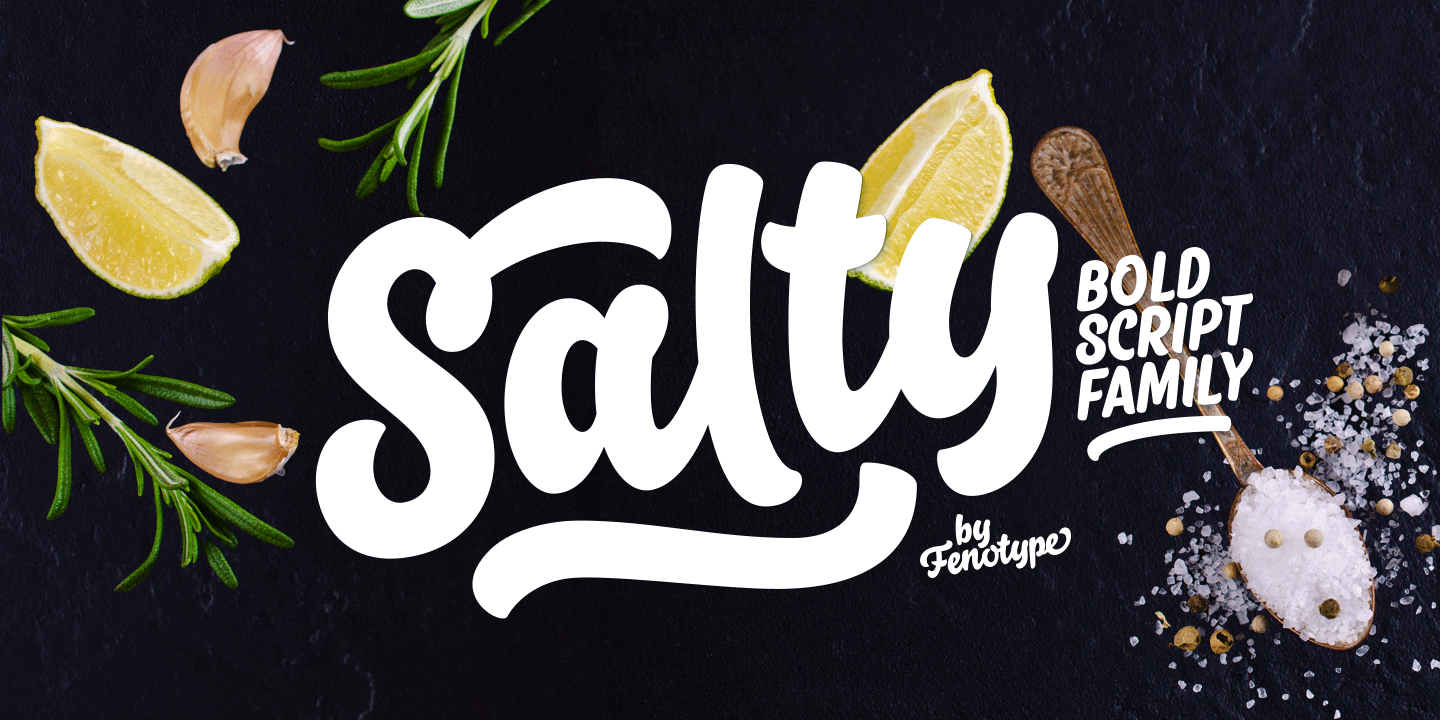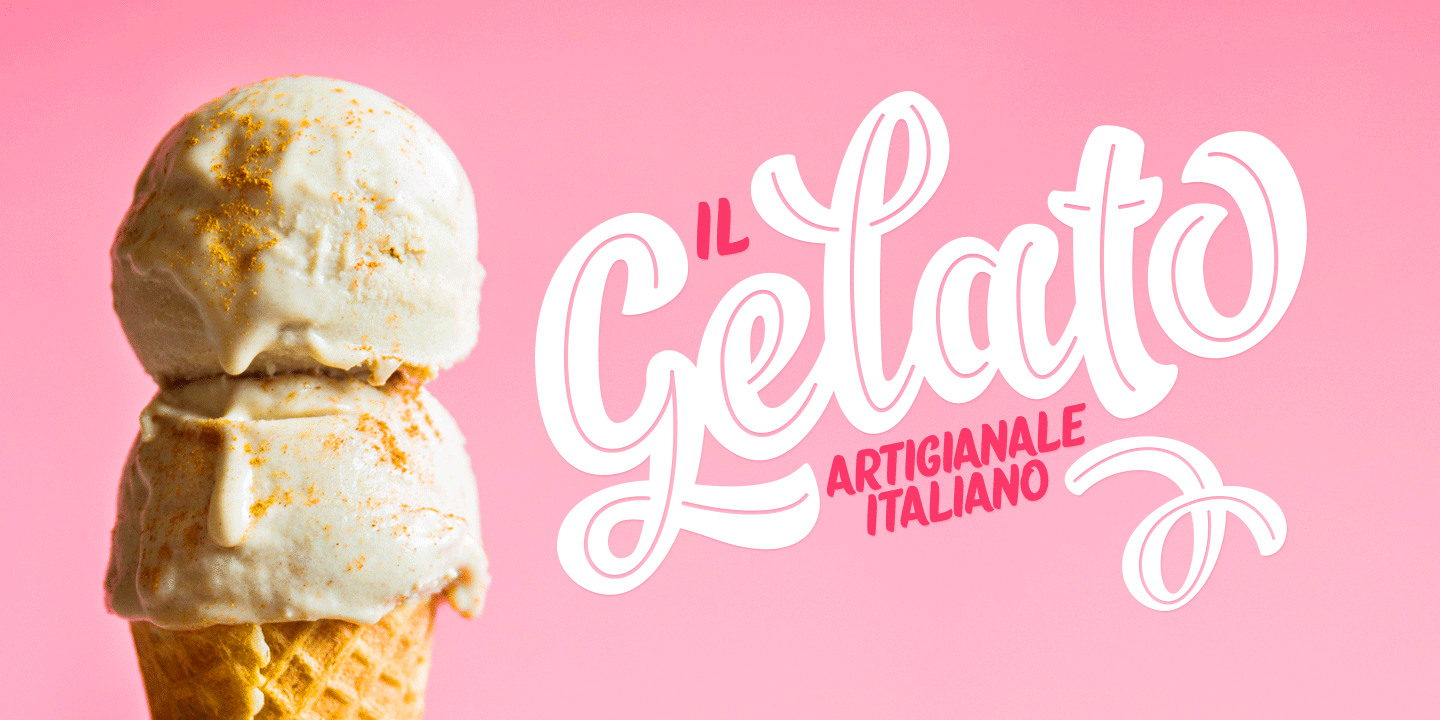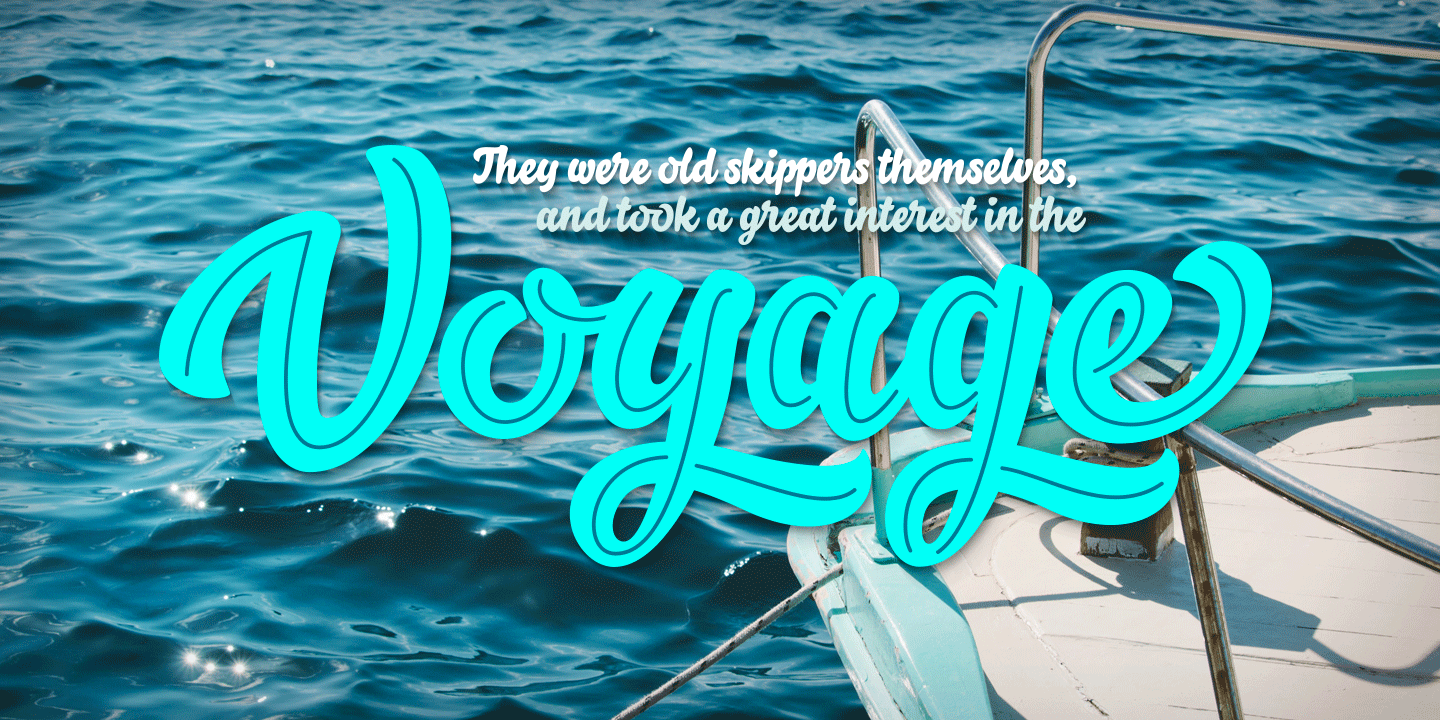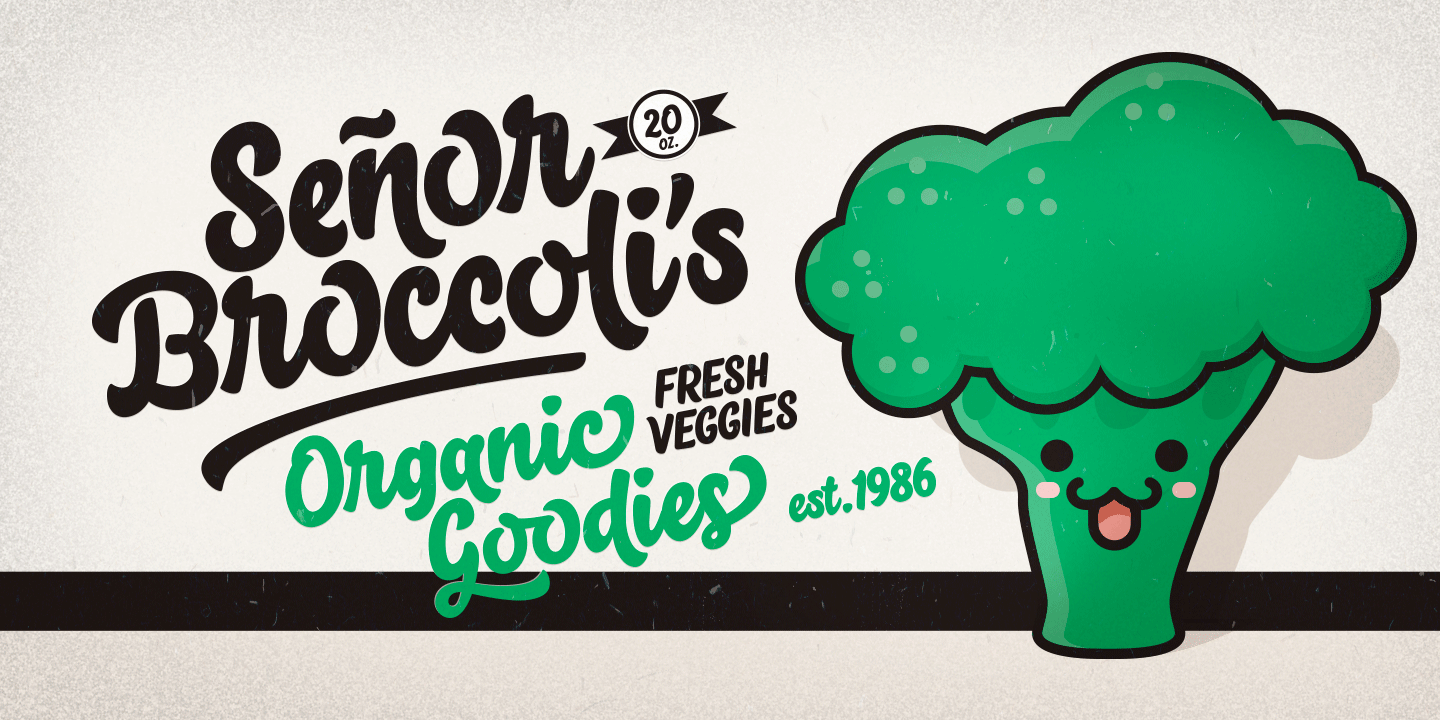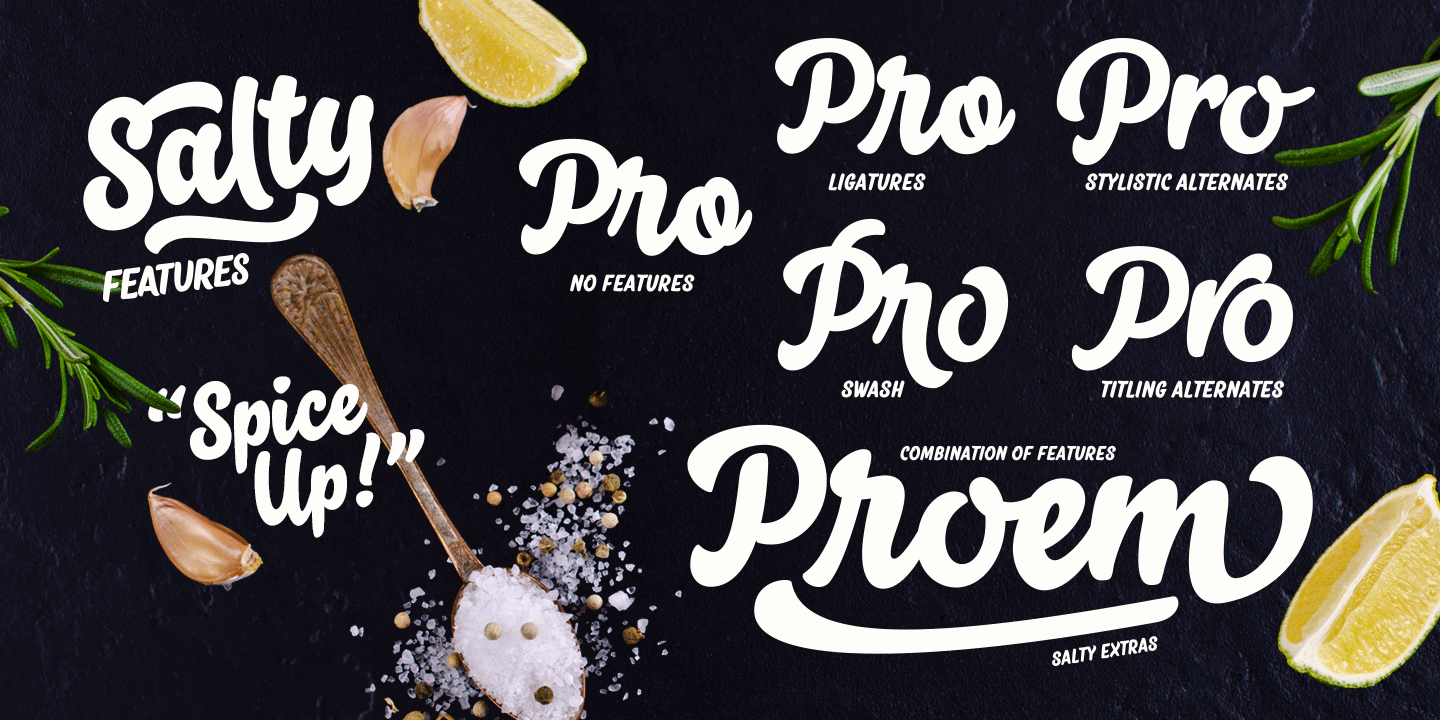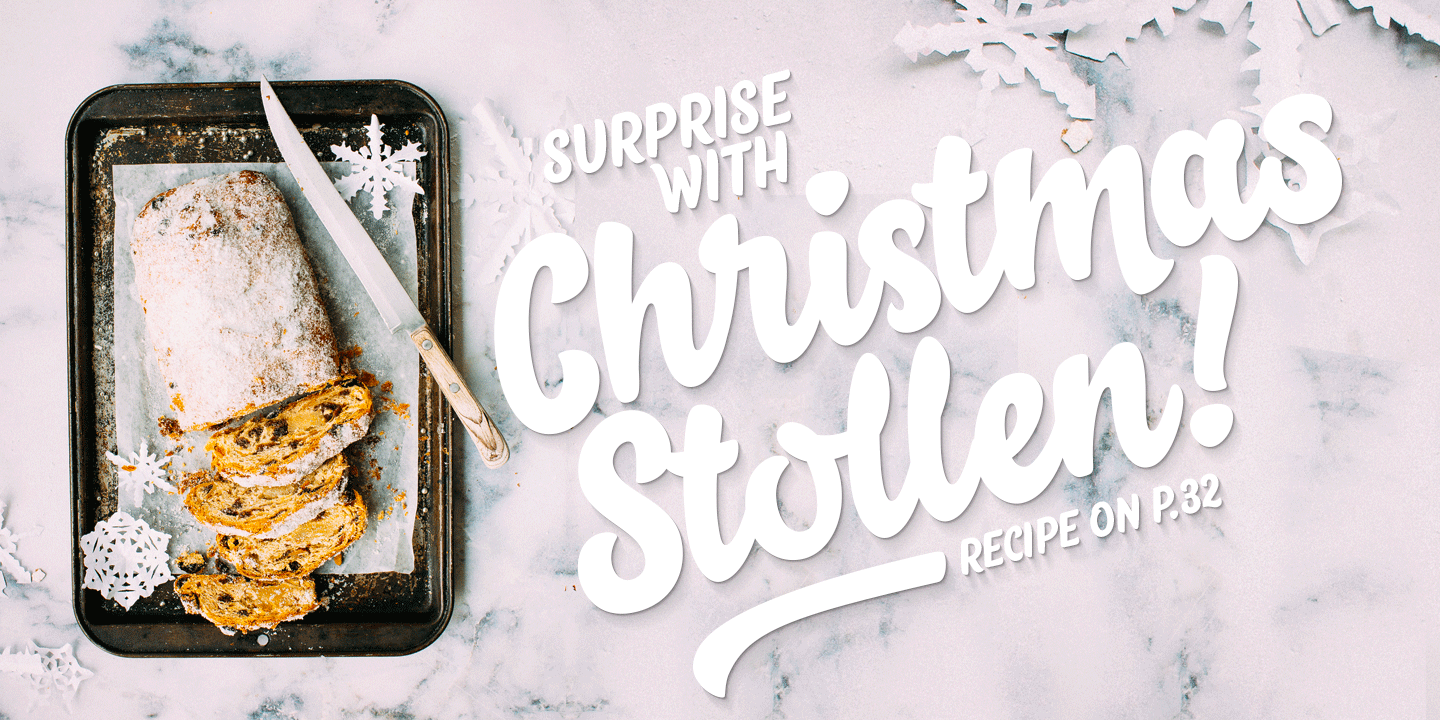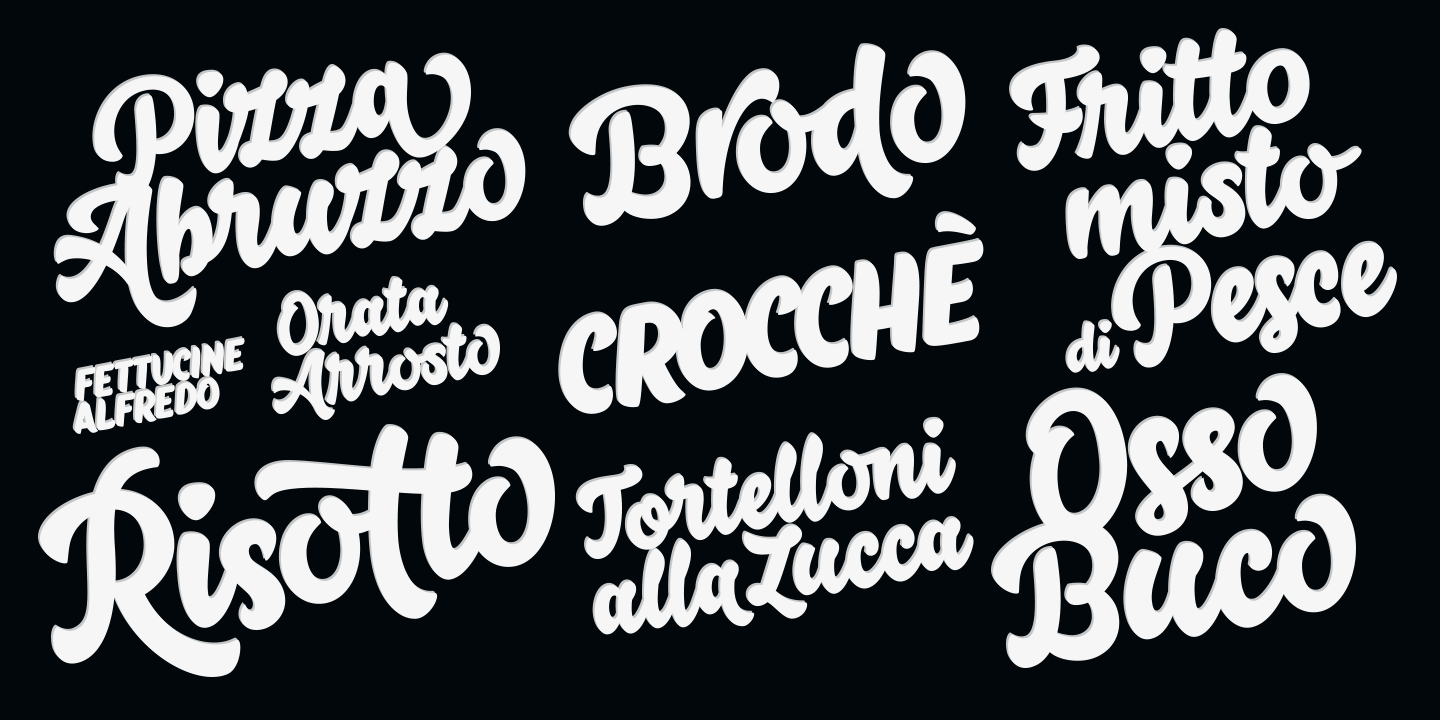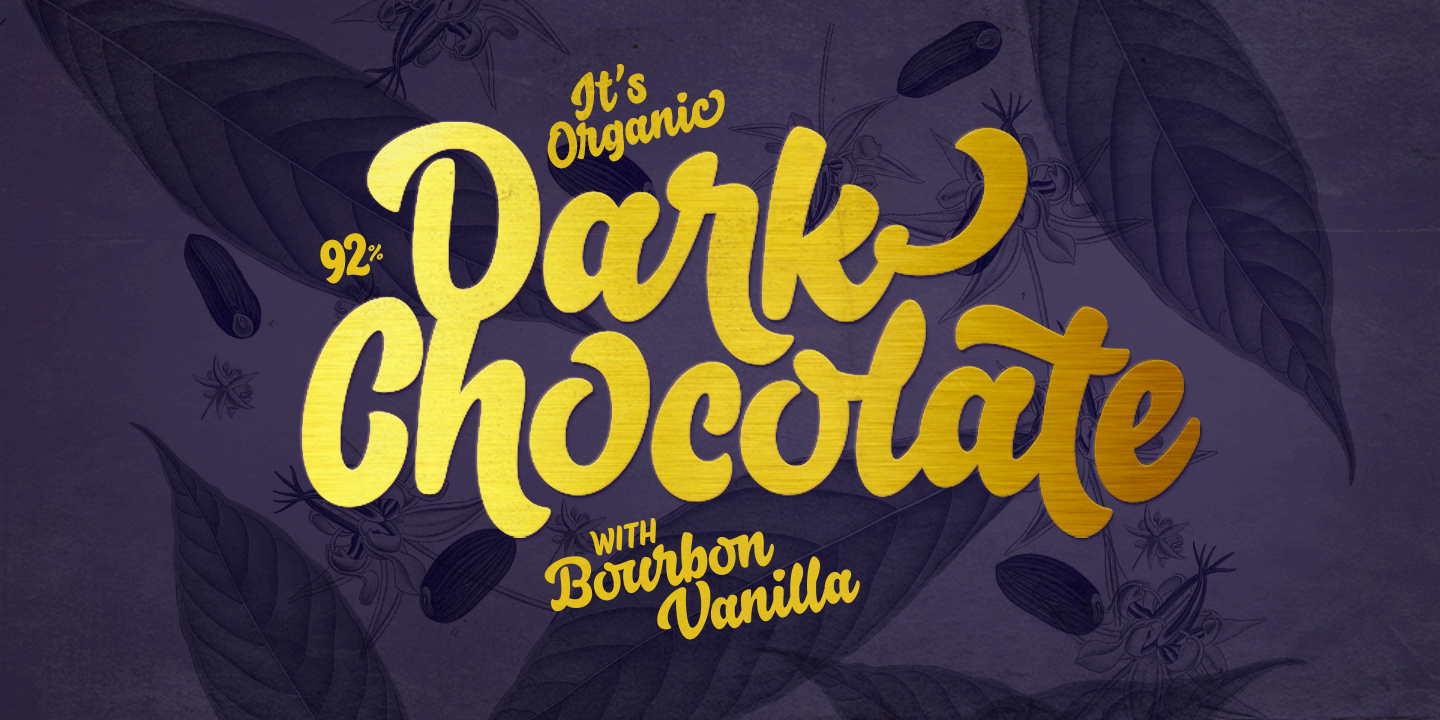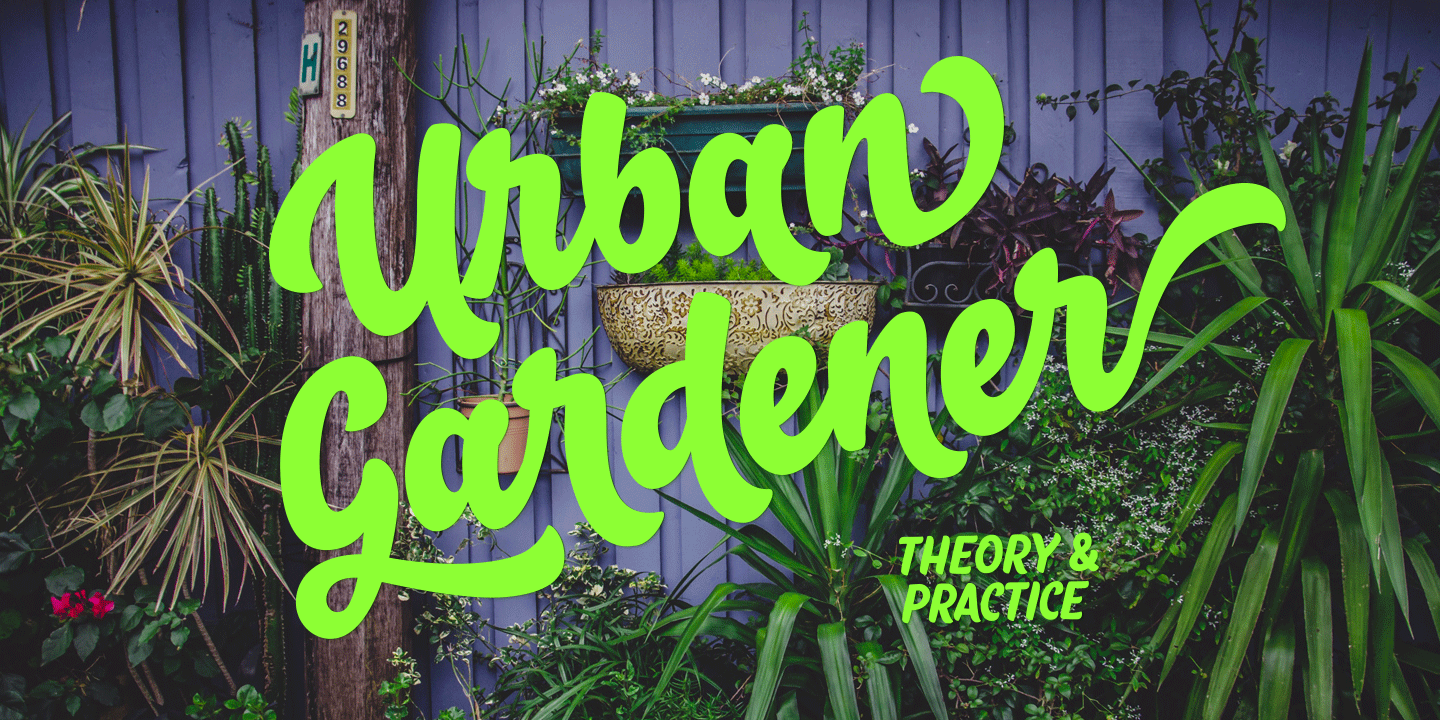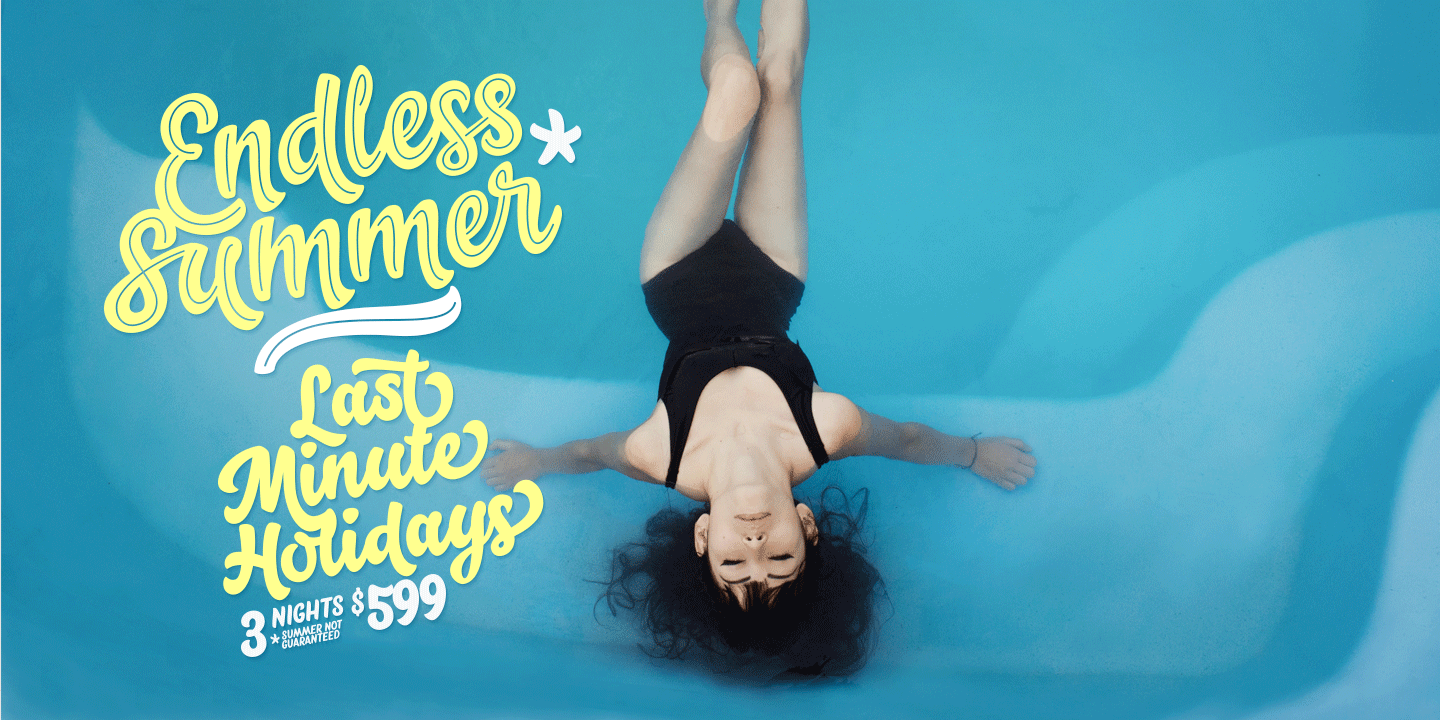
Salty
Font Family by Fenotype
Salty is a hearty brush family that's great for any kind of display use from packaging to poster & logos to headlines. Salty has bold and clear basic letterforms and lots of alternates for more customized look.
Salty family consists of Script, Caps and Extras and two weights of each. Salty script is equipped with plenty of OpenType features: Keep Automatic Ligatures on to keep the flow and click Swash, Stylistic or Titling Alternates for extra goodies or manually select from even more alternates from Glyph Palette.
Salty Caps is a vivid set of casual caps that play well with the script but can also be used on their own. Salty Extras is a set of ornaments and swashes designed to support the script. Some of the Extras are designed so that they can be used to customize the letters - to create your own Alternates.
Salty: not fat just big boned!